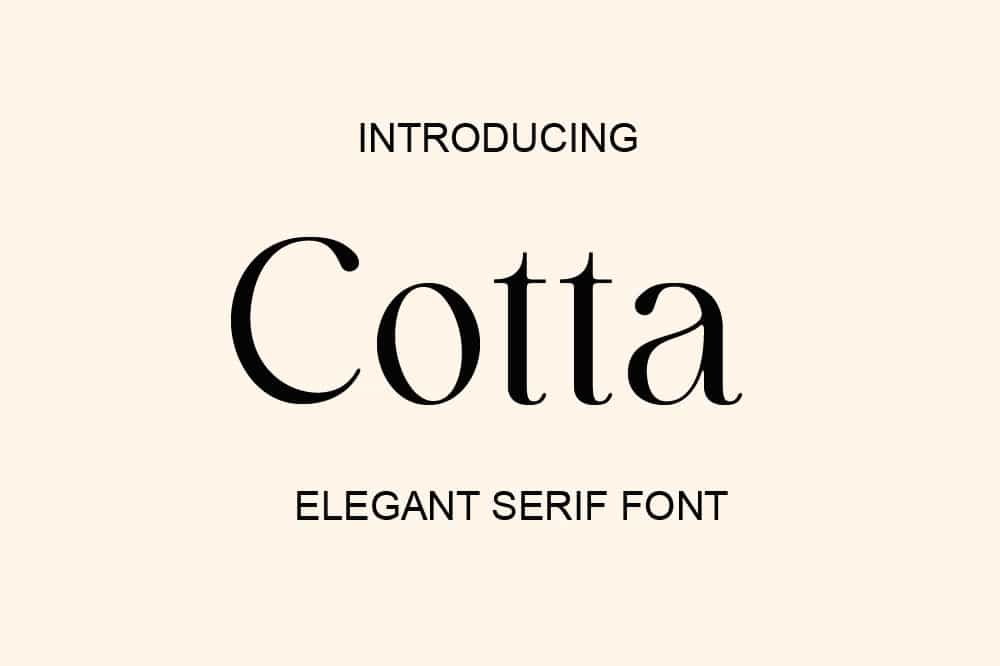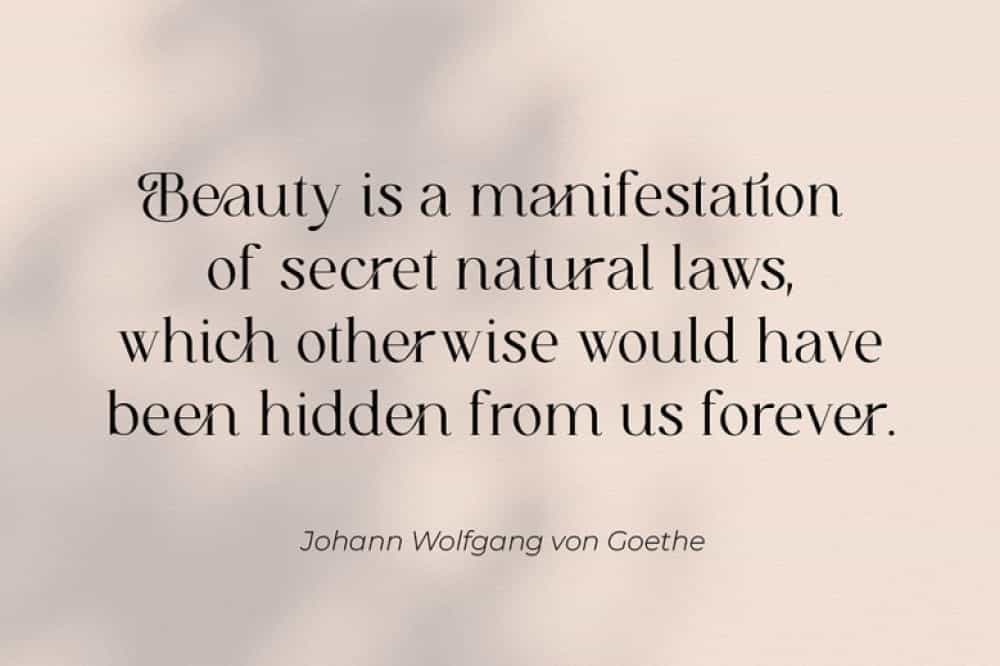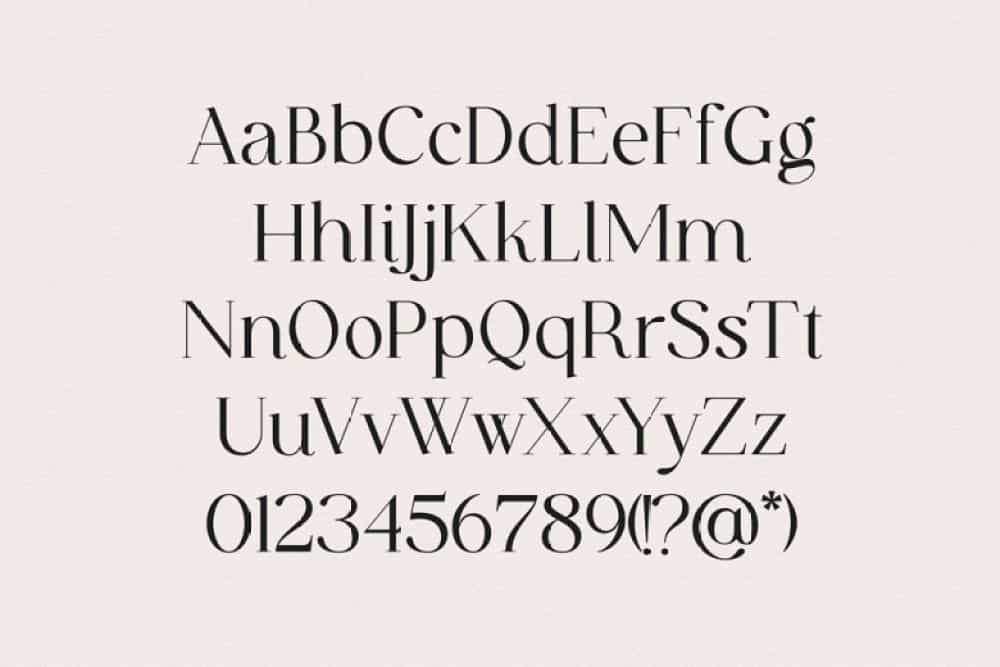
Cotta Serif Font is created with the modern concept that is simple yet dynamic in design. It contains many optional letters which you can use according to your design, and some of the ligatures to give a touch of femininity to the design. It is suitable for web design, branding, logo design, invitations, magazines, and many other applications.